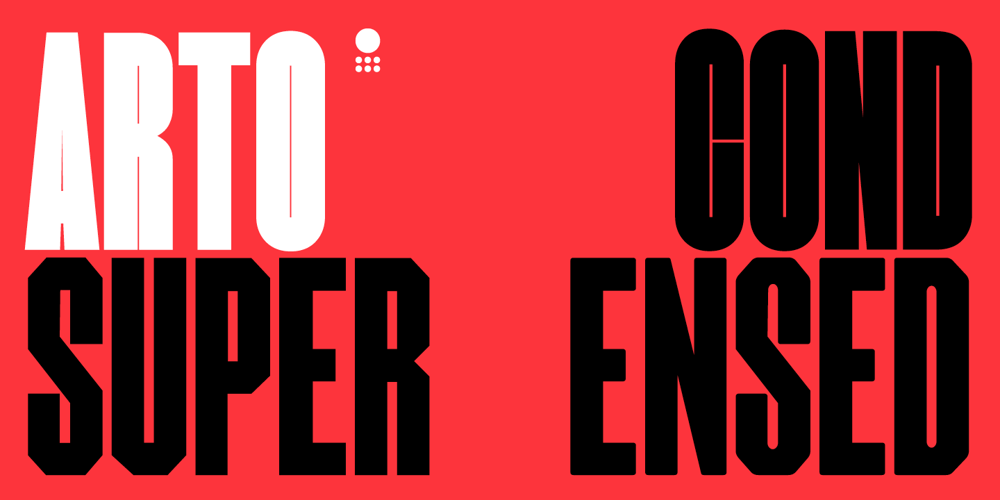
Arto Condensed
Arto Condensed font
Arto Condensed Font Family was designed by Paul Henry Robb and published by S6 Foundry. Arto Condensed contains 10 styles and family package options. Arto is a unique super-condensed typeface, ideal for branding projects and editorials headlines. The super tight kerning give this family a distinctive retro feel. The full family is a go to font for making projects distinctive, allowing projects to stand out. Arto Condensed has an extended character set to support Central and Eastern European as well as Western European language.Also available a variable version of the font.